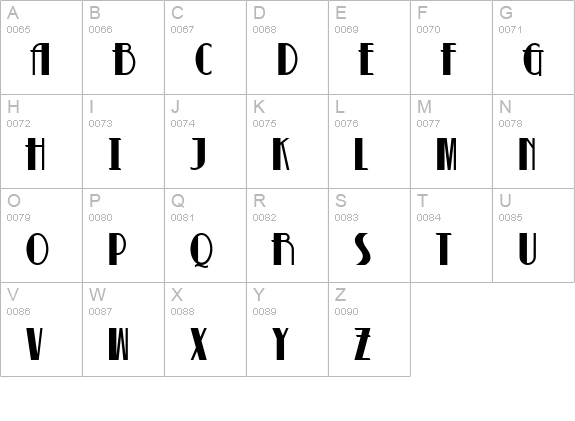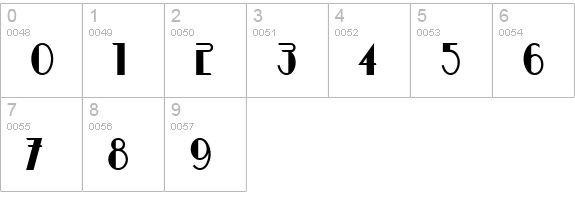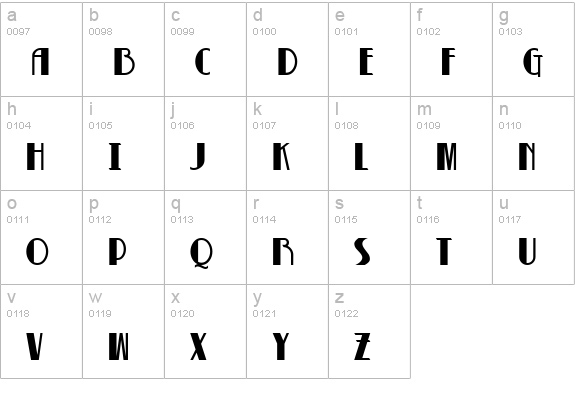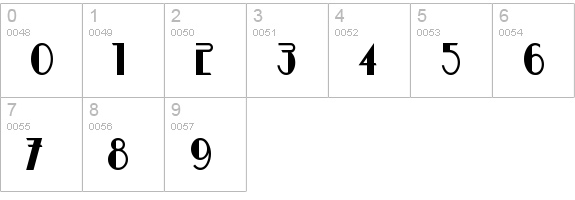
Betty Noir Font Details
Introducing Betty Noir font, a sophisticated and elegant typeface that exudes timeless charm and vintage allure. With its bold strokes and delicate serifs, Betty Noir adds a touch of classic sophistication to any design project. This versatile font is perfect for creating eye-catching headlines, elegant invitations, or stylish branding materials. And the best part? Betty Noir font is completely free to download at FontsMarket.com! Enjoy the beauty and elegance of this stunning typeface without breaking the bank. Upgrade your designs with Betty Noir font today and elevate your projects to new heights of style and sophistication.